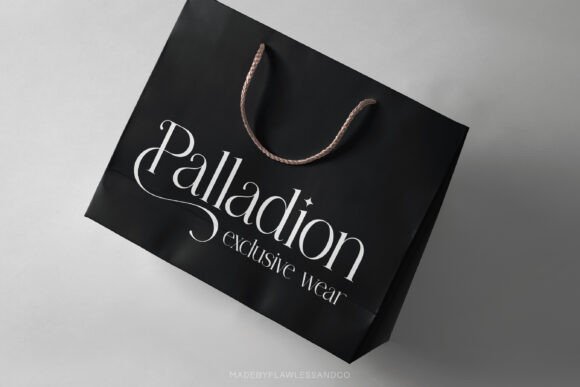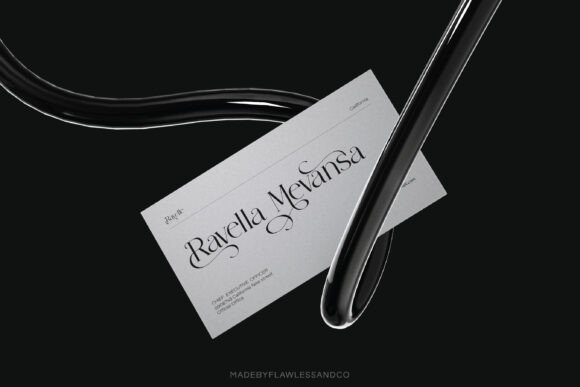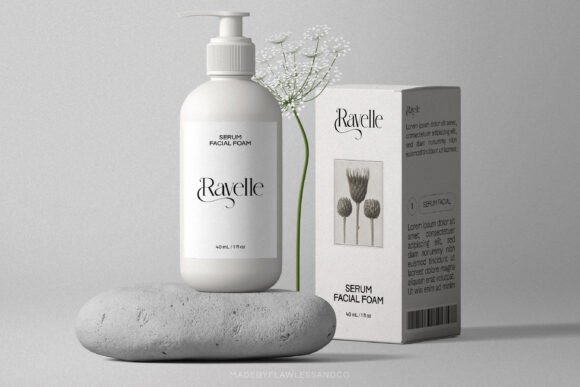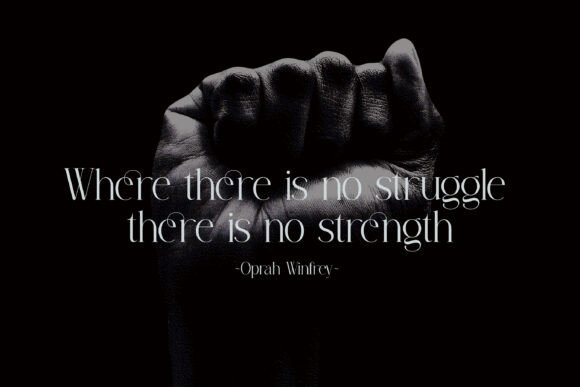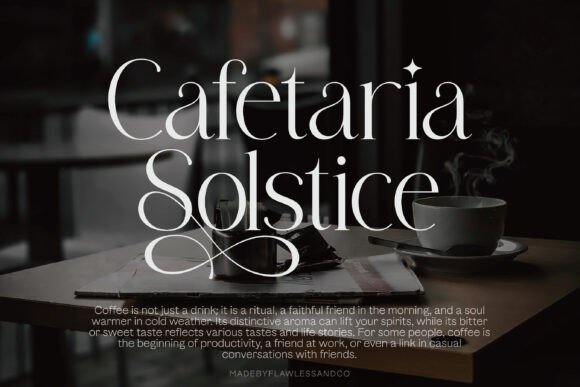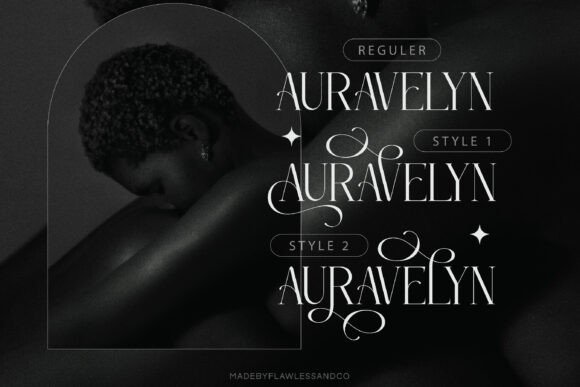
Introduction to Honorveil Font
As designers, we’ve all experienced that moment of excitement when we stumble upon a design resource that elevates our creative project to the next level. For me, that moment came when I discovered the Honorveil Font. Its modern and elegant serif design is like a breath of fresh air, perfect for high-end branding, luxury packaging, and editorial design.
What sets Honorveil apart is its beautiful alternates, which add a touch of sophistication to any design. With its refined letterforms and graceful details, this font is a valuable addition to any designer’s toolkit. Whether you’re working on a wedding invitation or a luxury logo, Honorveil brings timeless beauty and versatility to your creative project.
Key Features of Honorveil Font
- The Honorveil Font is a high-quality design resource, perfect for creative projects that require a unique and elegant touch.
- With its elegant and sophisticated design, the Honorveil Font is perfect for creating a professional and polished look in any creative project.
Honest Review: Honorveil Font
I recently stumbled upon the Honorveil Font, and I must say it’s been a delightful addition to my design resources. ✨
One of the things I appreciate about this font is its versatility. It’s available for free download, making it a fantastic resource for designers on a budget. The high quality of the font ensures that it looks professional and polished, even when used on a transparent background.
- High-quality font that looks professional and polished
- Works well for a variety of creative projects, including digital and print media
However, I do have a few limitations to mention ⚠️:
- May not be suitable for projects that require a lot of bold or dramatic typography
- Limited customization options, which may be a drawback for some designers
Overall, I’m really impressed with the Honorveil Font. It’s a fantastic addition to any designer’s toolkit, and I’m excited to see how it will be used in future creative projects.
To get the most out of the Honorveil Font, experiment with different font sizes, colors, and styles to create a unique look. You can also use it in combination with other design elements to create a cohesive visual identity.
The Honorveil Font is ideal for use in corporate branding, wedding invitations, and other creative projects that require a touch of sophistication and elegance.